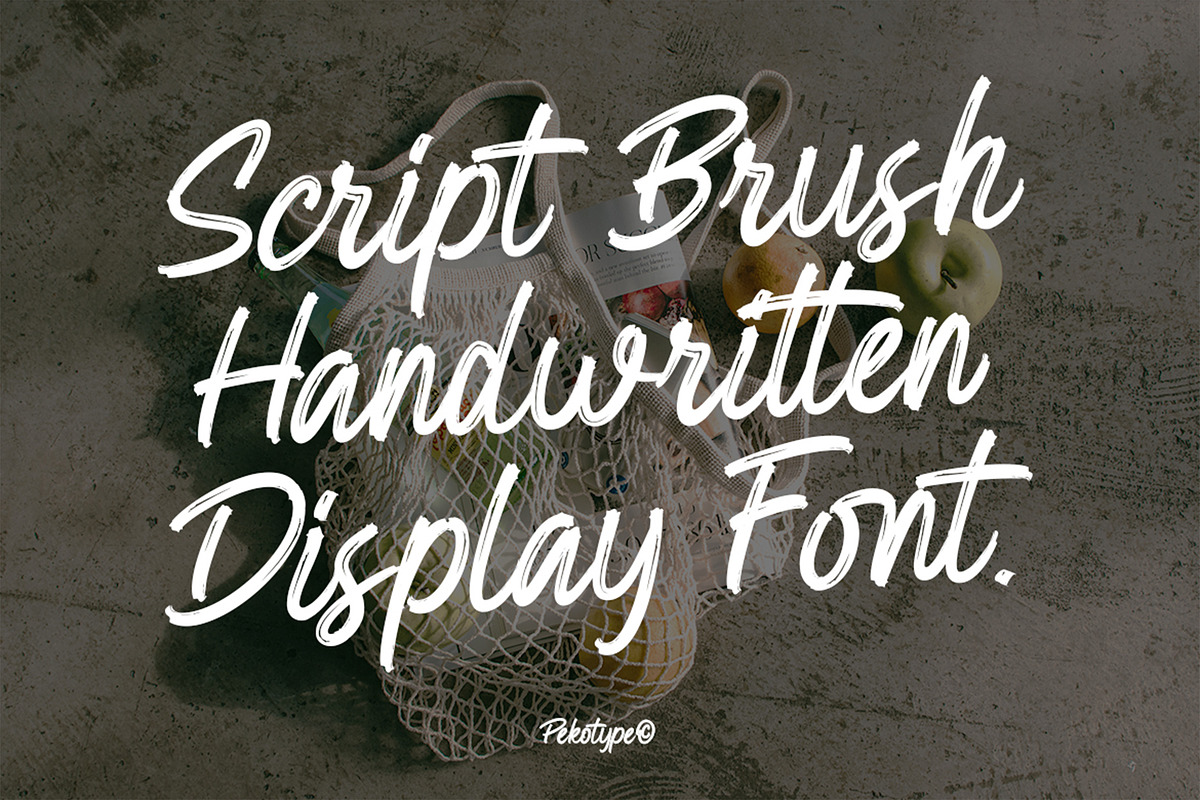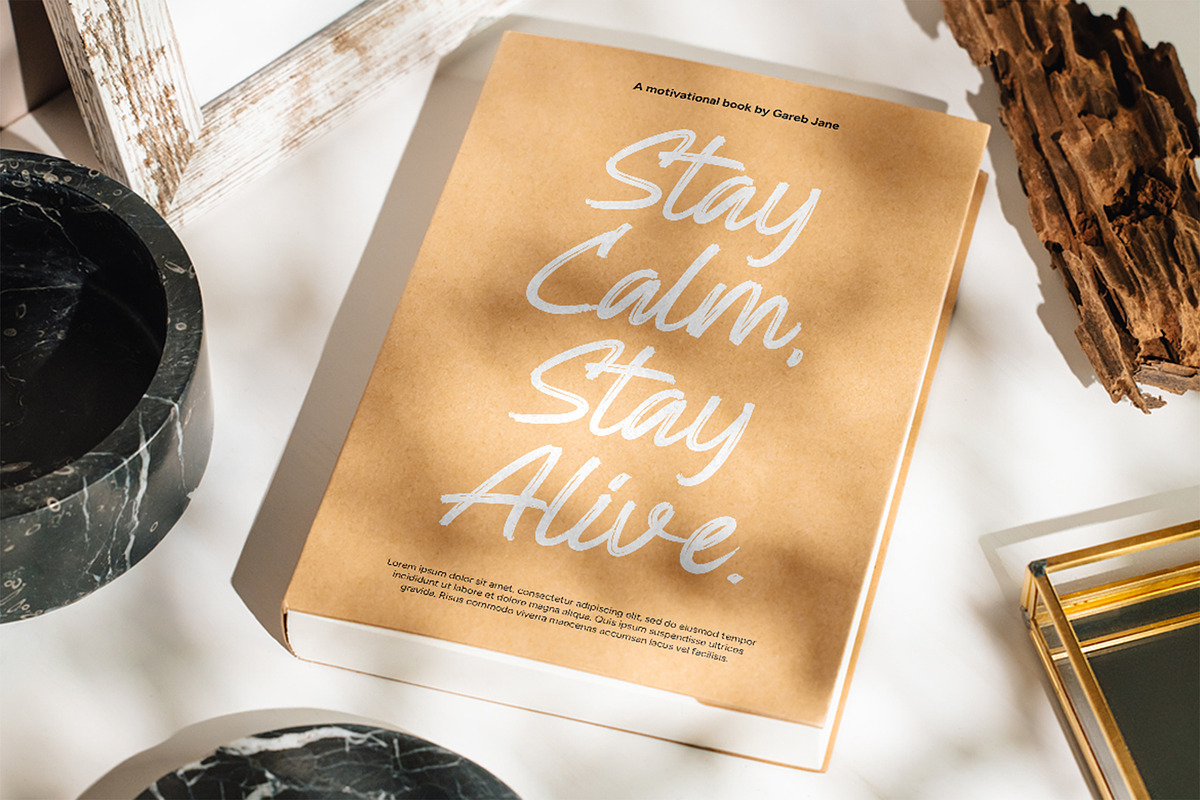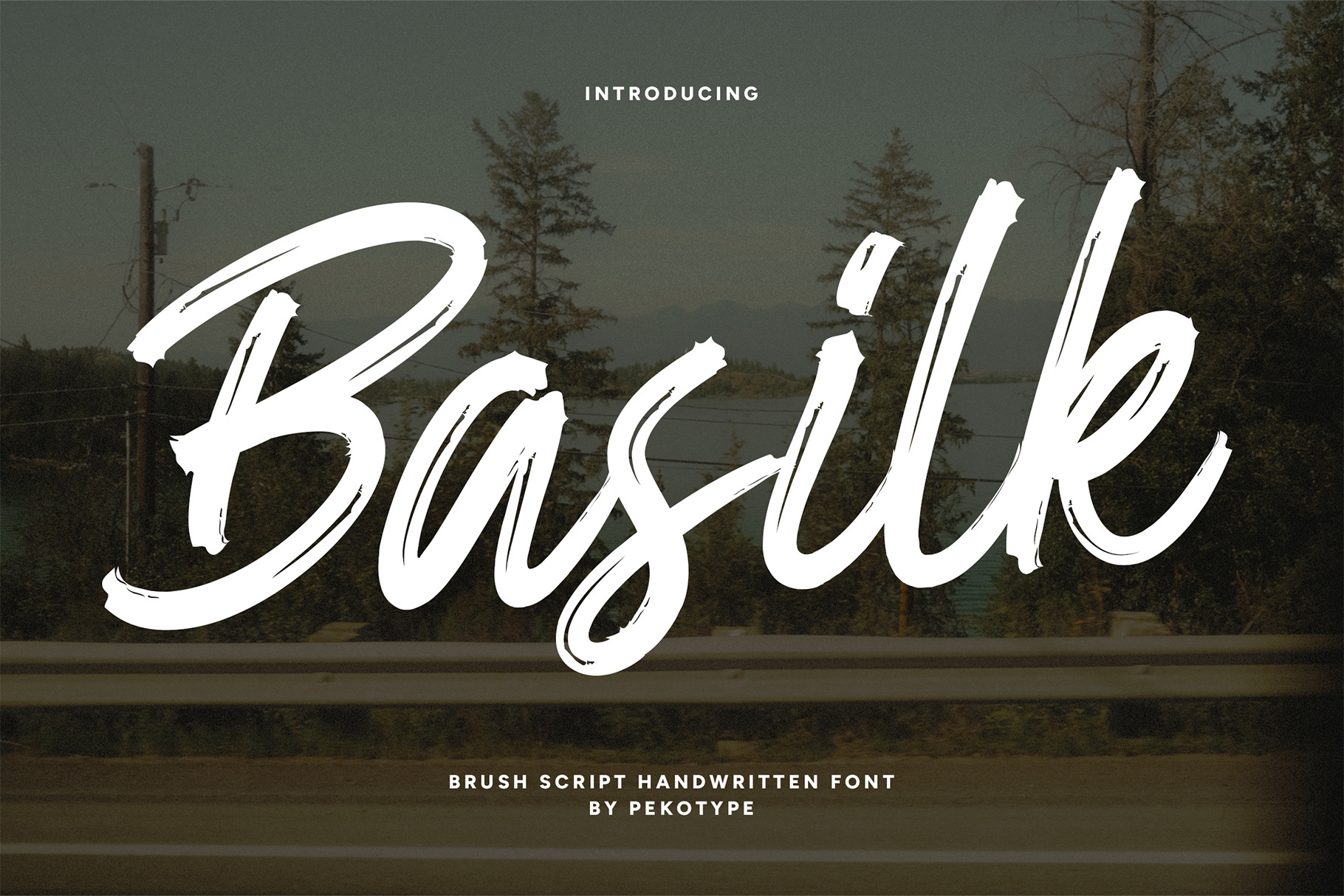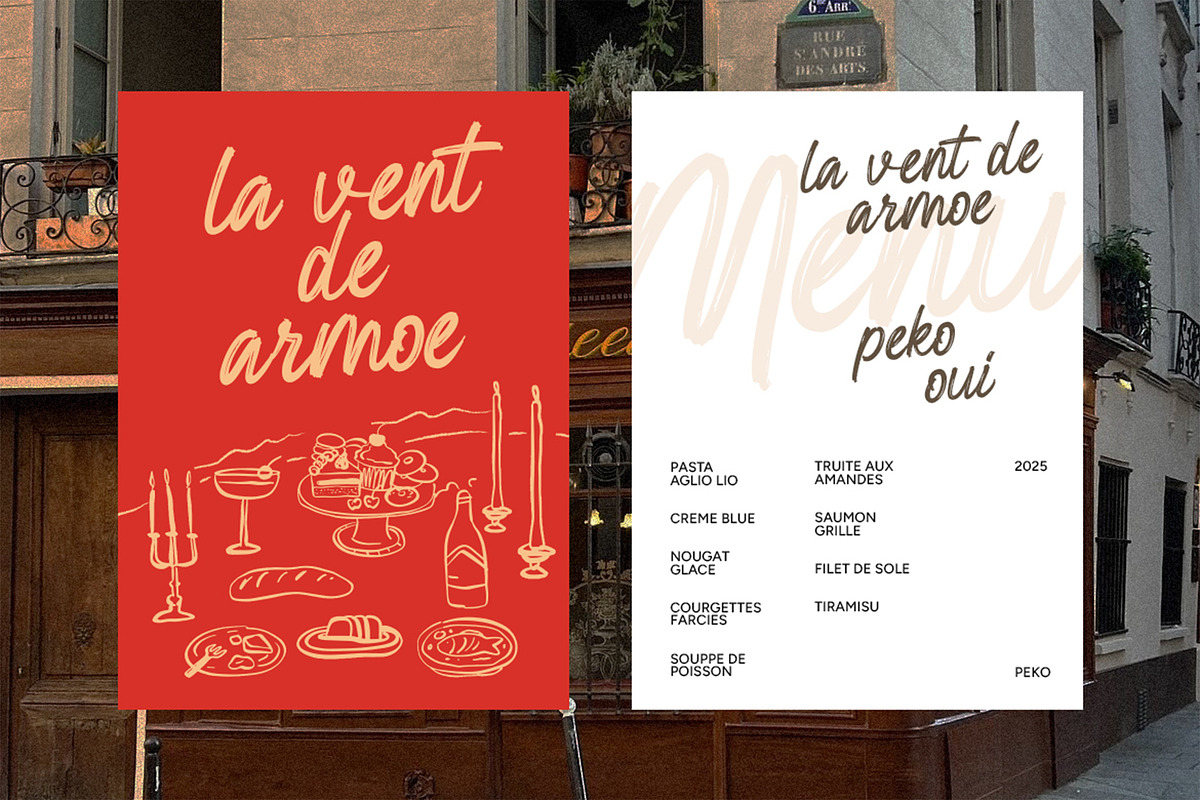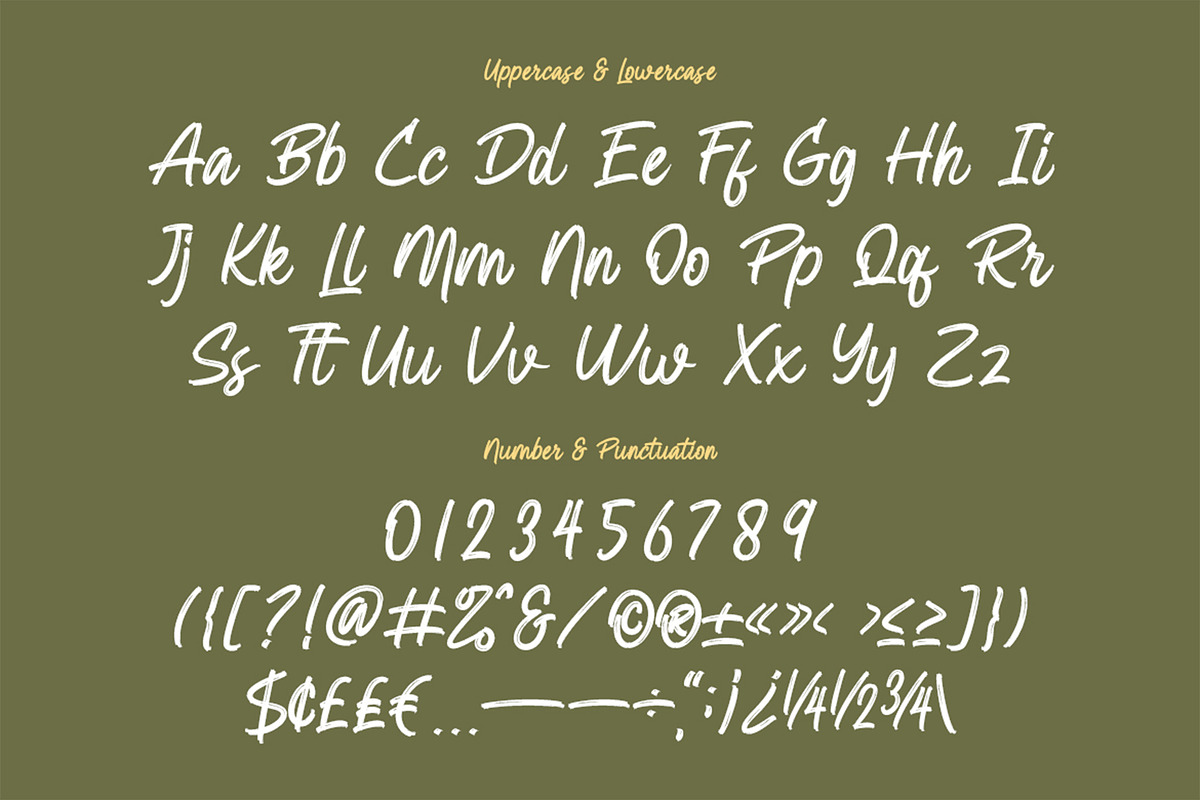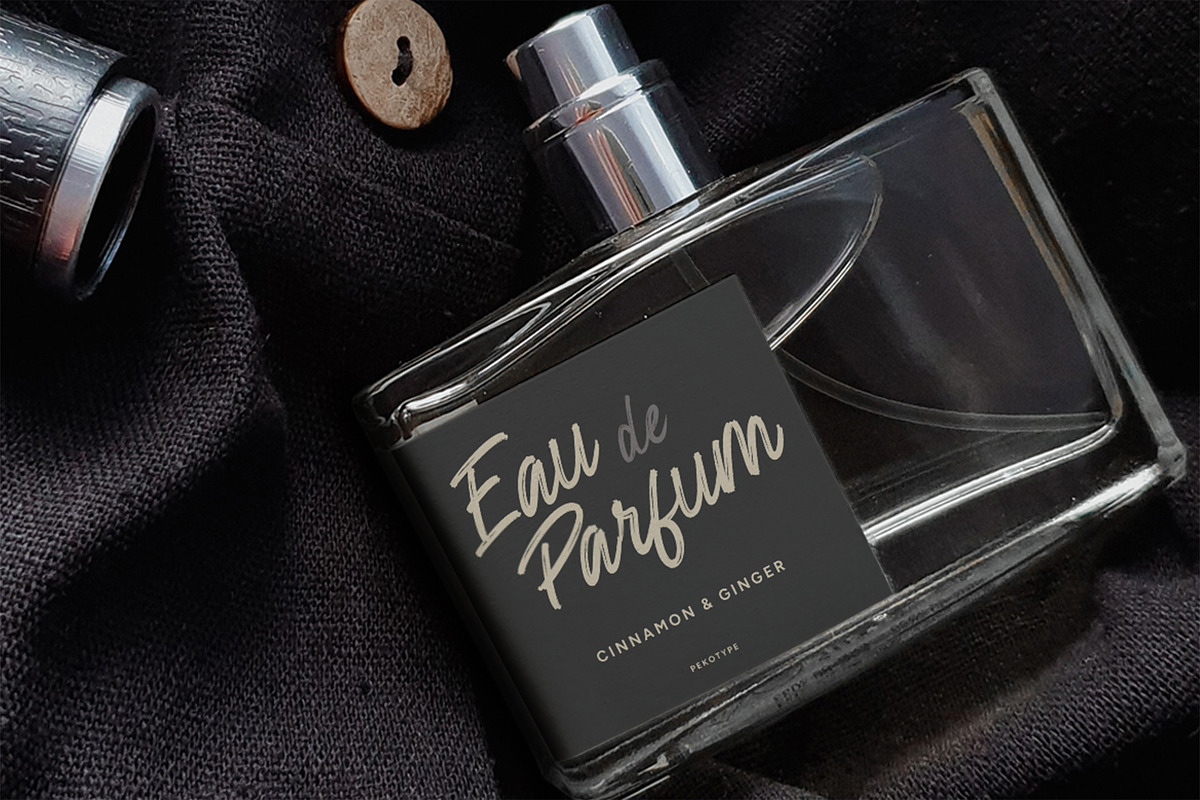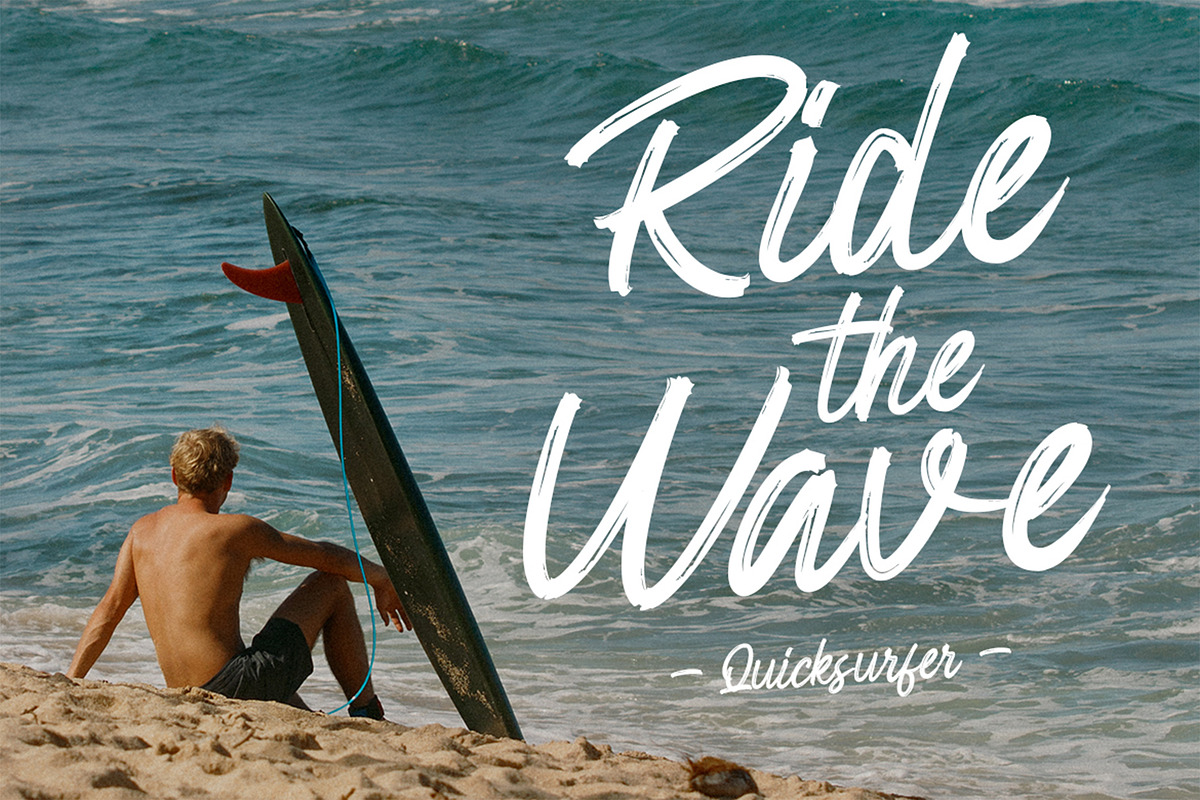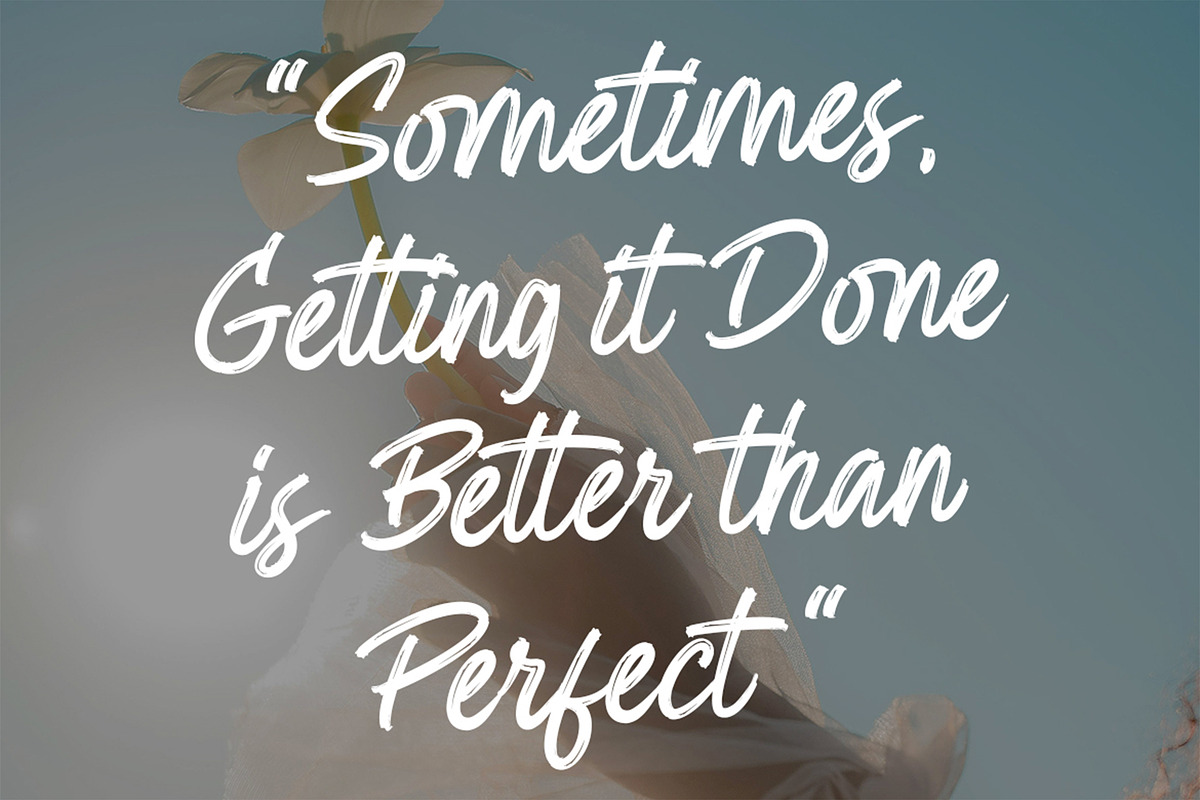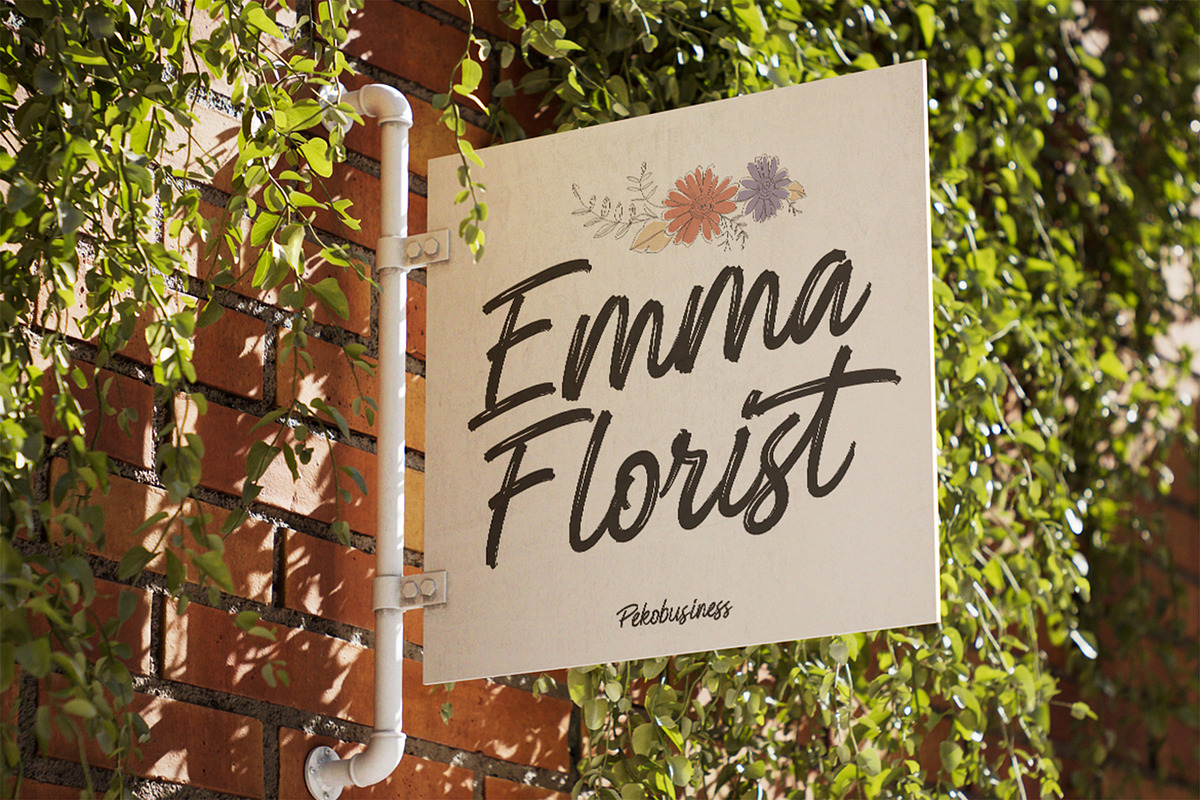
Basilk - Brush Handwritten Font
Introducing BASILK – The Bold Script Brush Font for Creatives
Meet BASILK, a rough brush script font crafted with raw energy and hand-lettered charm. Designed to stand out, BASILK blends the expressive power of brush strokes with the elegance of natural handwriting, making it perfect for brands and creators who dare to be bold.
Whether you're designing a logo, billboard, merchandise, or a social media post that turns heads, BASILK brings that handcrafted edge that modern design needs. Every letter is packed with personality, giving your words a unique, dynamic, and artistic feel.
With its rough textures, fluid curves, and natural flow, BASILK captures the true spirit of brush script fonts. It's not just a font—it’s a statement.